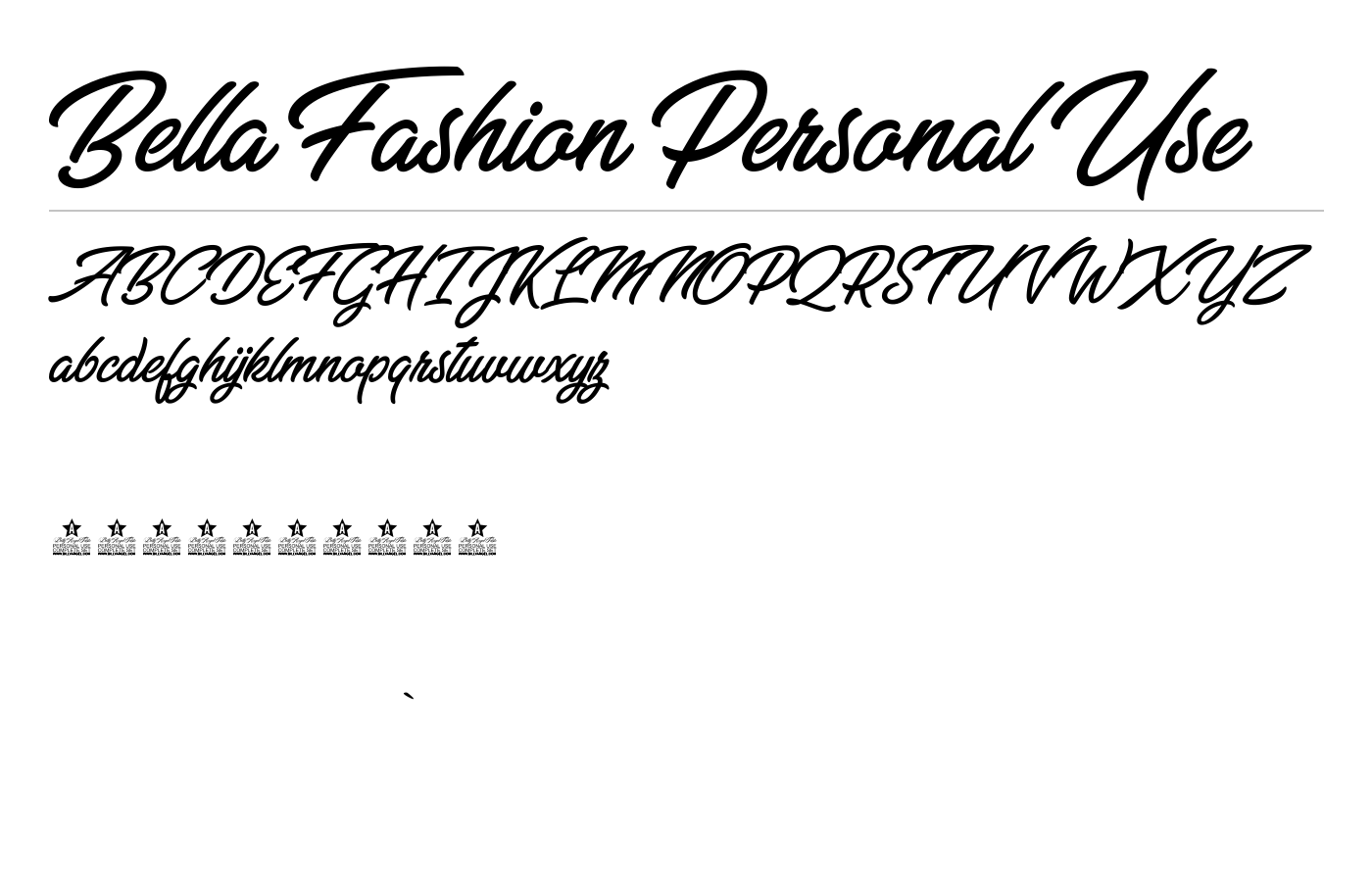
Bella Fashion Personal Use is a stylish script font with a smooth, flowing design that exudes elegance and modern sophistication. Its balanced stroke weight and cursive letterforms make it perfect for fashion branding, invitations, and any creative project that seeks to convey a chic and refined personality. This font works beautifully in headlines or logos where a touch of personal flair and luxury is desired.
Bella Fashion Personal Use Font
About Bella Fashion Personal Use Font